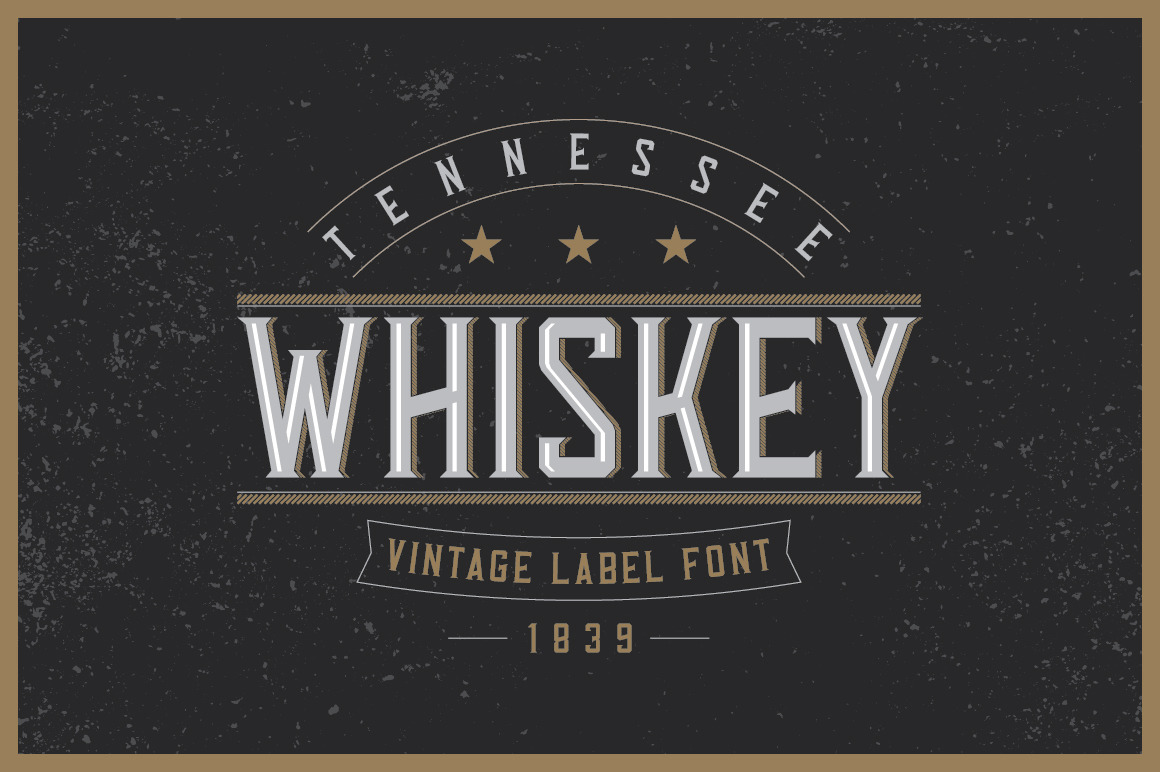
Tennessee Whiskey label font
Introducing a vintage look label typeface named "Tennessee Whiskey". It's made in strong and vintage label style. Typeface is good viewed on any labels design.
- 5 fonts in complect with special effects, plus aged version
- You can mix light, texture and shadow effects (look at 4-th screenshot)